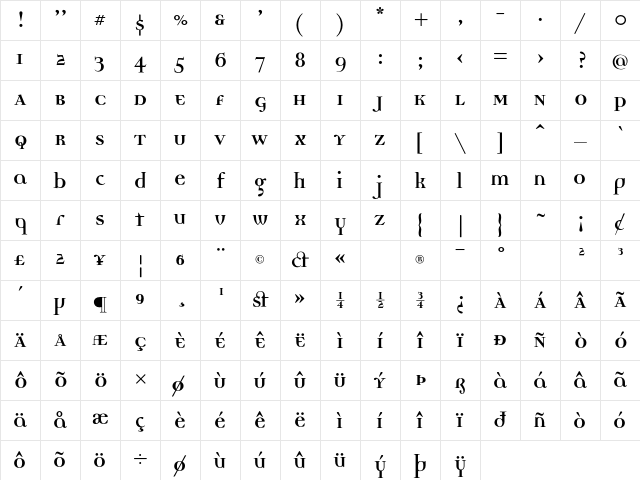
Complete DemocraticaBoldOldstyle Medium glyph index. Displaying only characters natively supported by DemocraticaBoldOldstyle Medium font.
DemocraticaBoldOldstyle carries the refined structure of traditional serif typography, with bracketed terminals and considered proportions that communicate credibility and craft. Its bold stroke weight gives it real presence on the page.